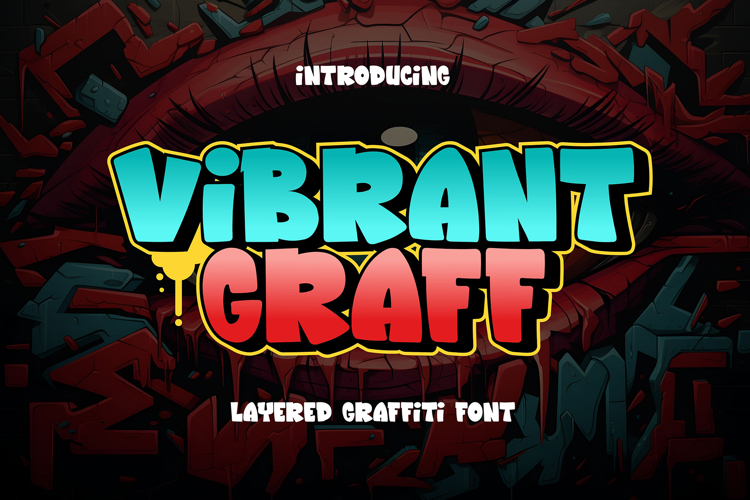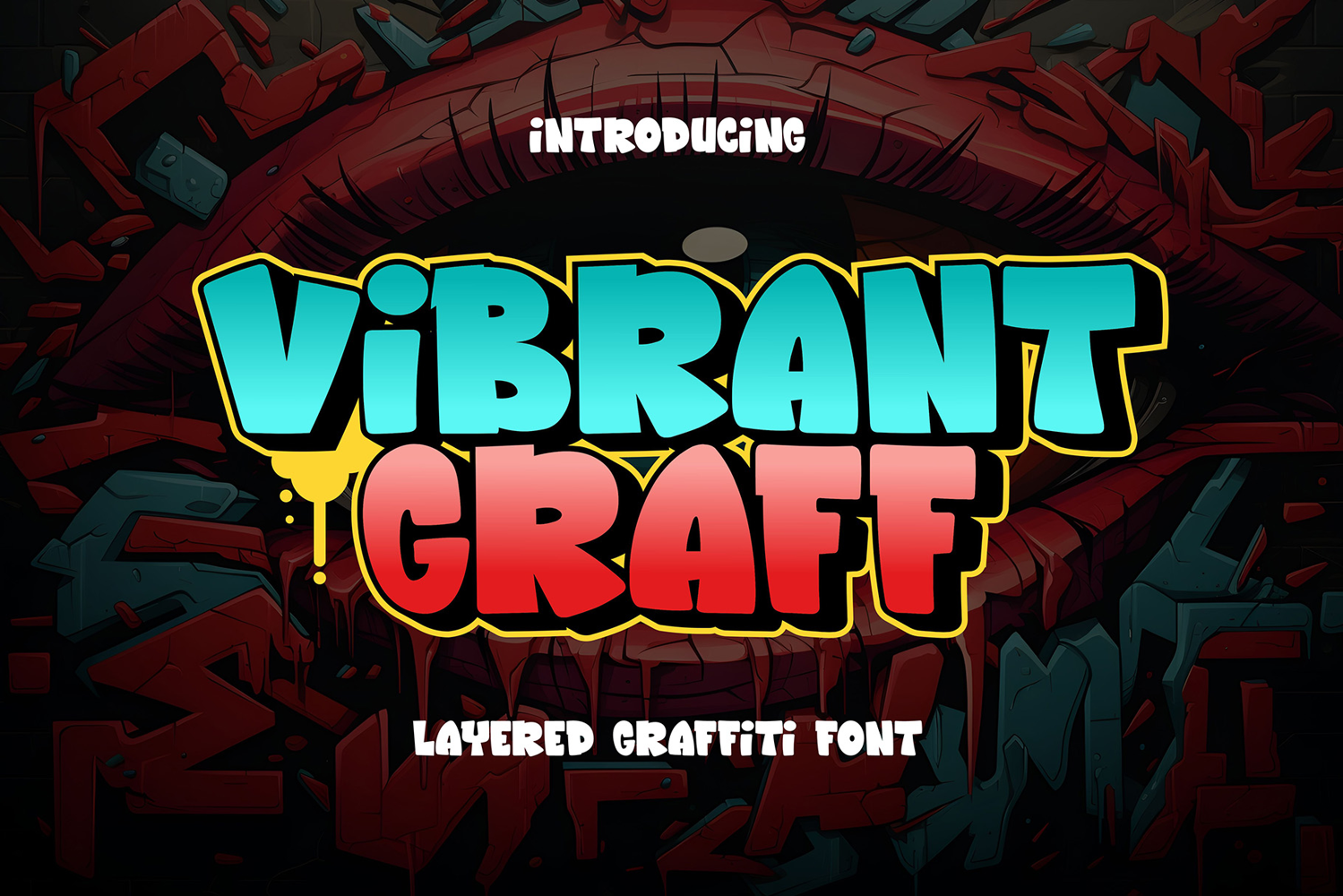
Vibrant Graff - Layered Graffiti Font
Step into the colorful world of urban expression with Vibrant Graff – the layered graffiti font that adds depth, dimension, and dynamism to your designs. More than just a font, Vibrant Graff is a versatile toolkit for crafting bold and eye-catching street-inspired designs that captivate audiences and leave a lasting impression.
🏙️ Urban Dynamism: With its layered and textured design, Vibrant Graff captures the dynamic and ever-changing nature of urban graffiti. Each layer adds vibrancy and depth, creating a visually striking effect that leaps off the page and commands attention.
🎨 Limitless Creativity: From posters and murals to apparel and digital graphics, Vibrant Graff empowers you to unleash your creativity and push the boundaries of artistic expression. Its layered construction offers endless possibilities for customization, allowing you to create designs that are as unique as they are impactful.
🔥 Bold Statement: Make a bold statement with Vibrant Graff. Its bold and vibrant style demands attention and sparks curiosity, ensuring your message is seen and remembered in the bustling urban landscape.
🌟 Youthful Appeal: Embrace the rebellious spirit of street culture with Vibrant Graff. Its edgy urban aesthetic resonates with young, creative audiences, making it the perfect choice for projects aimed at capturing the essence of urban youth culture.
💡 Unleash Your Imagination: With Vibrant Graff, the only limit is your imagination. Experiment with different layer combinations, colors, and effects to create designs that stand out and make a statement. Let your creativity run wild and watch as your ideas come to life in stunning detail.
🌆 Cityscape Inspiration: Inspired by the vibrant streets of the city, Vibrant Graff brings the energy and vitality of urban life to your designs. Its layered graffiti style captures the raw intensity and passion of street art, infusing your projects with an authentic urban vibe.
Transform your designs into urban masterpieces with Vibrant Graff – where graffiti meets typography, and creativity knows no bounds. It's time to make your mark on the world with this best-selling layered graffiti font leading the way.